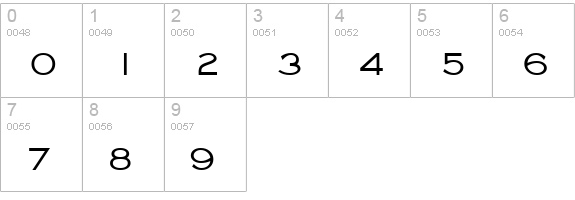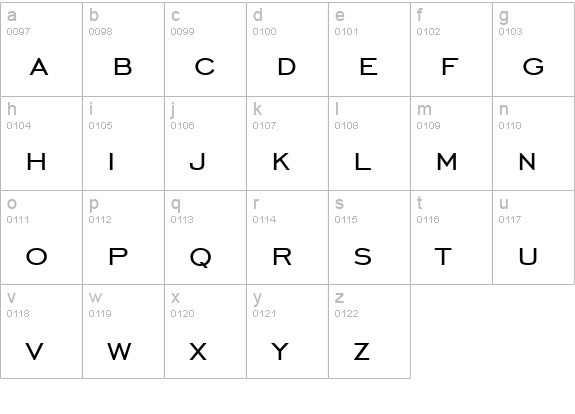
Engravers' Gothic BT font is a classic and elegant typeface that exudes sophistication and professionalism. With its clean lines and sharp edges, this font is perfect for creating sleek and stylish designs. Whether you're working on a logo, branding materials, or a website, Engravers' Gothic BT font will add a touch of class to your project. The best part? Engravers' Gothic BT font is available for free download at FontsMarket.com. That's right, you can access this premium font at no cost and use it in your personal and commercial projects. Don't miss out on the opportunity to elevate your designs with the timeless beauty of Engravers' Gothic BT font. Download it now and start creating stunning visuals that will leave a lasting impression.